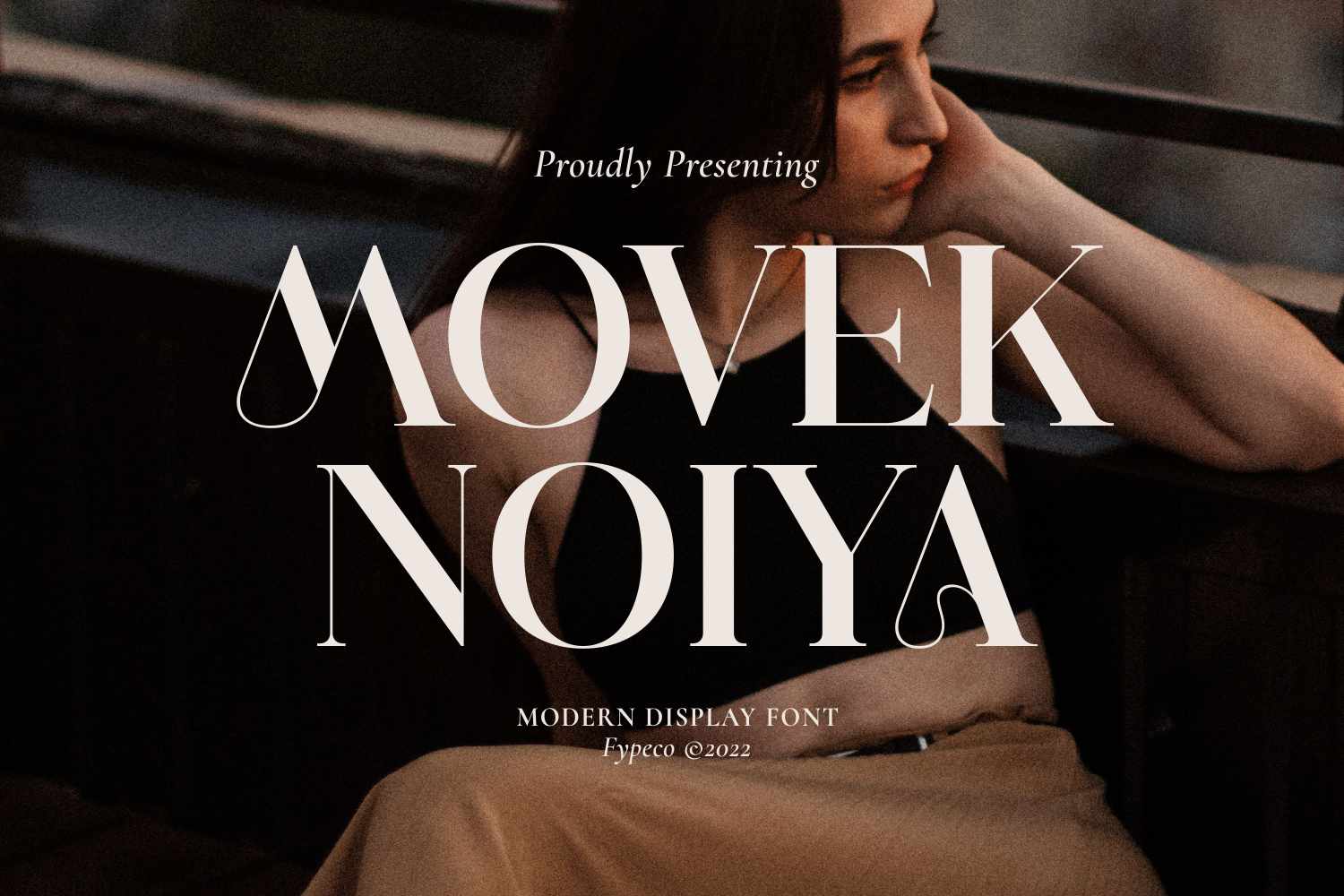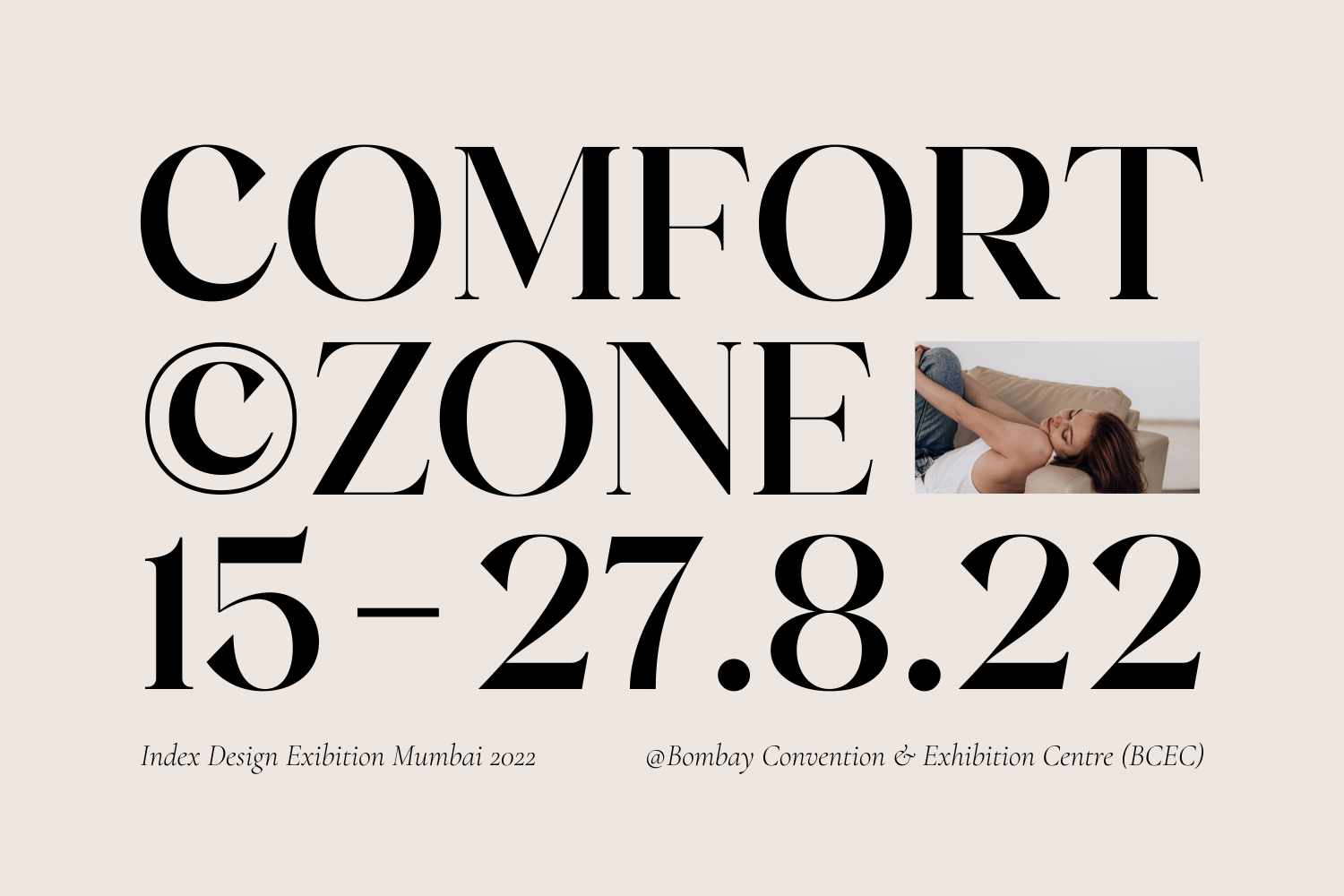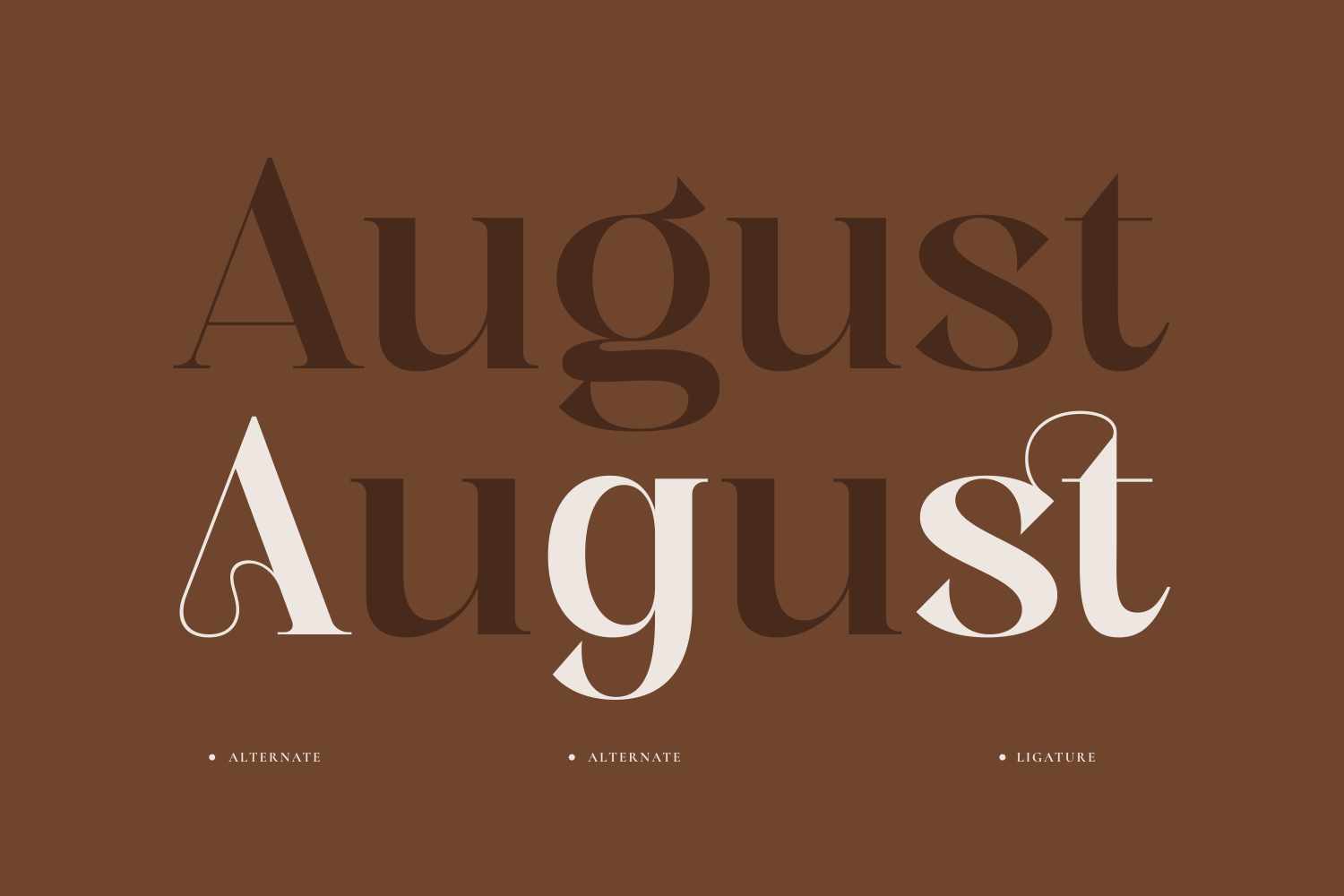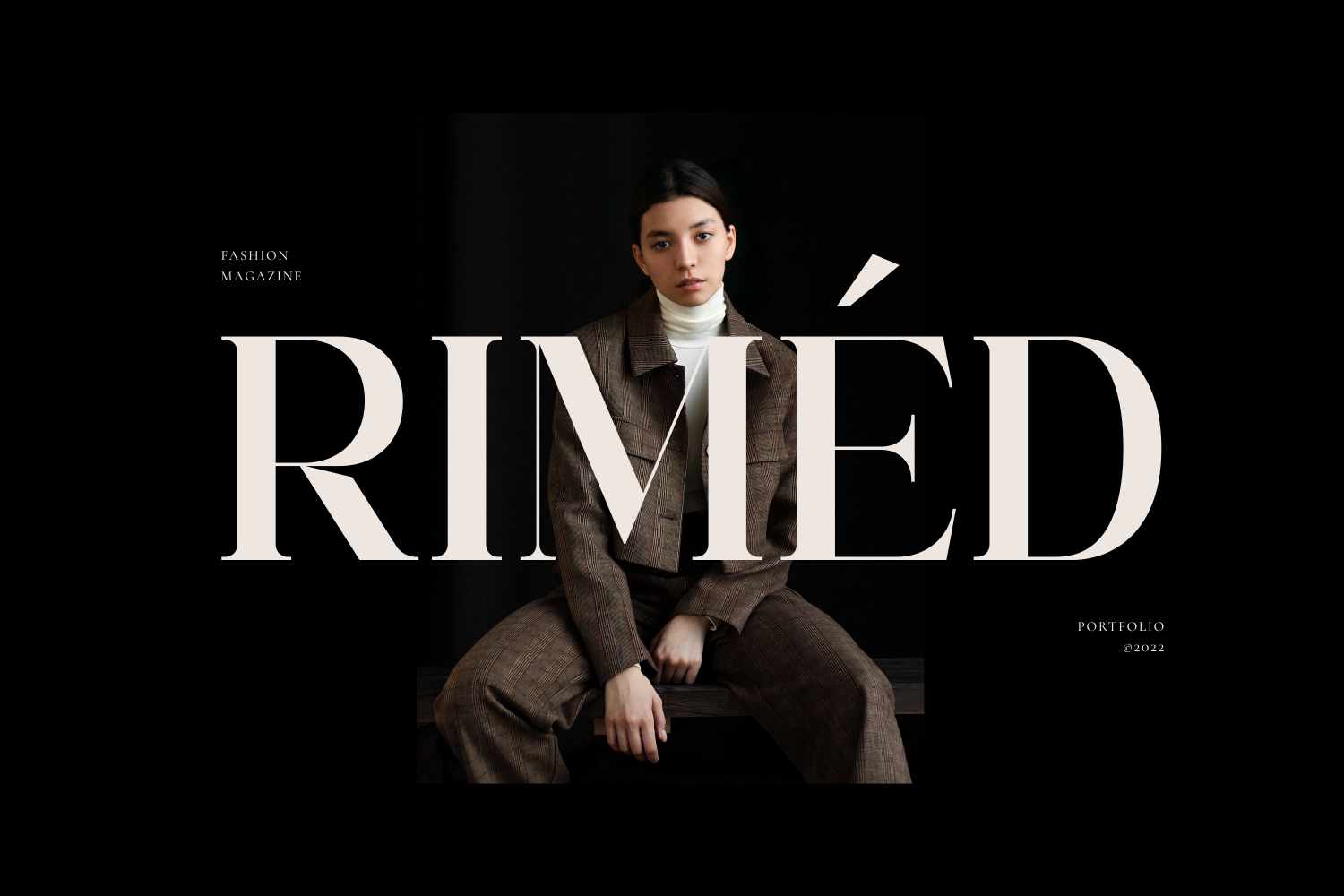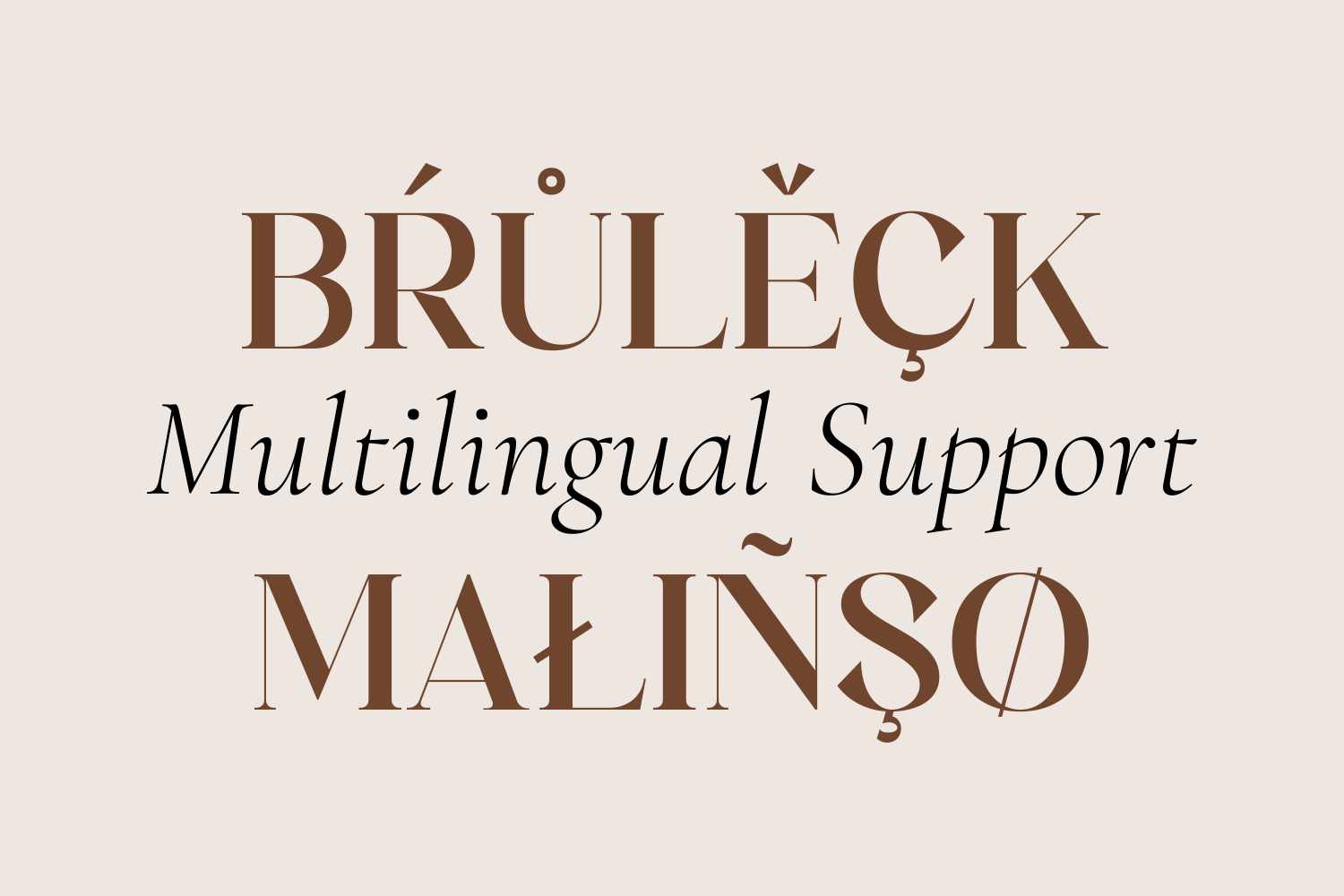
Movek noiya
Glyphs for Movek Noiya
Movek Noiya is a modern display serif font with high contrast strokes and artistic alternates. Its elegant curves, refined ligatures, and unique details create a striking balance between timeless sophistication and contemporary design. Perfectly crafted for fashion magazines, branding, editorials, and luxury packaging, Movek Noiya brings a bold yet classy aesthetic to your projects.
With multilingual support, stylish alternates, and versatile characters, Movek Noiya adapts beautifully to both headline and logo design. Whether used in print or digital media, this typeface ensures your brand stands out with elegance and confidence, making every design visually captivating and memorable.